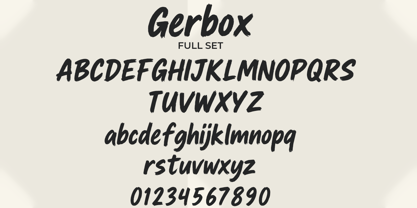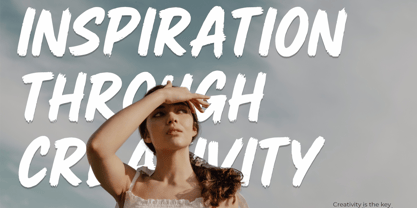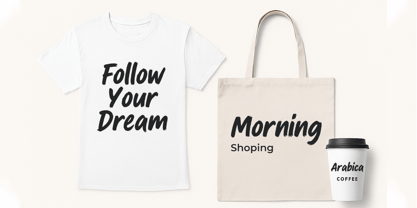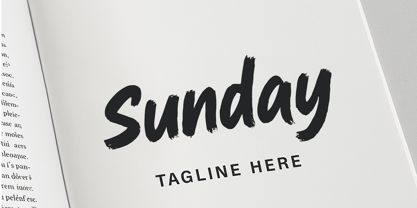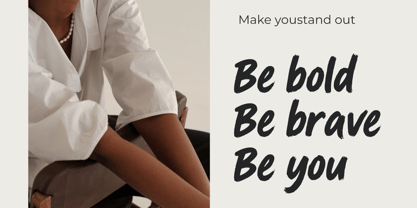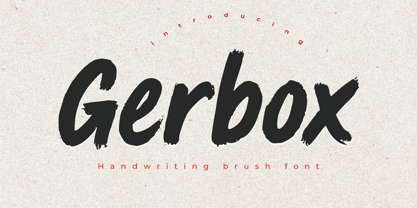
Gerbox
by Cocodesign
The Gerbox Font Family was designed by Muhammad Zaini and published by Cocodesign. Gerbox contains 1 styles. More about this family
Gerbox is a bold and expressive brush font that captures the feel of handwritten strokes with a modern touch. Crafted for designers who want to make a statement, Gerbox blends organic texture with clean structure — perfect for branding, packaging, merchandise, editorial layouts, and inspirational quotes.
Designers: Muhammad Zaini
Foundry: Cocodesign